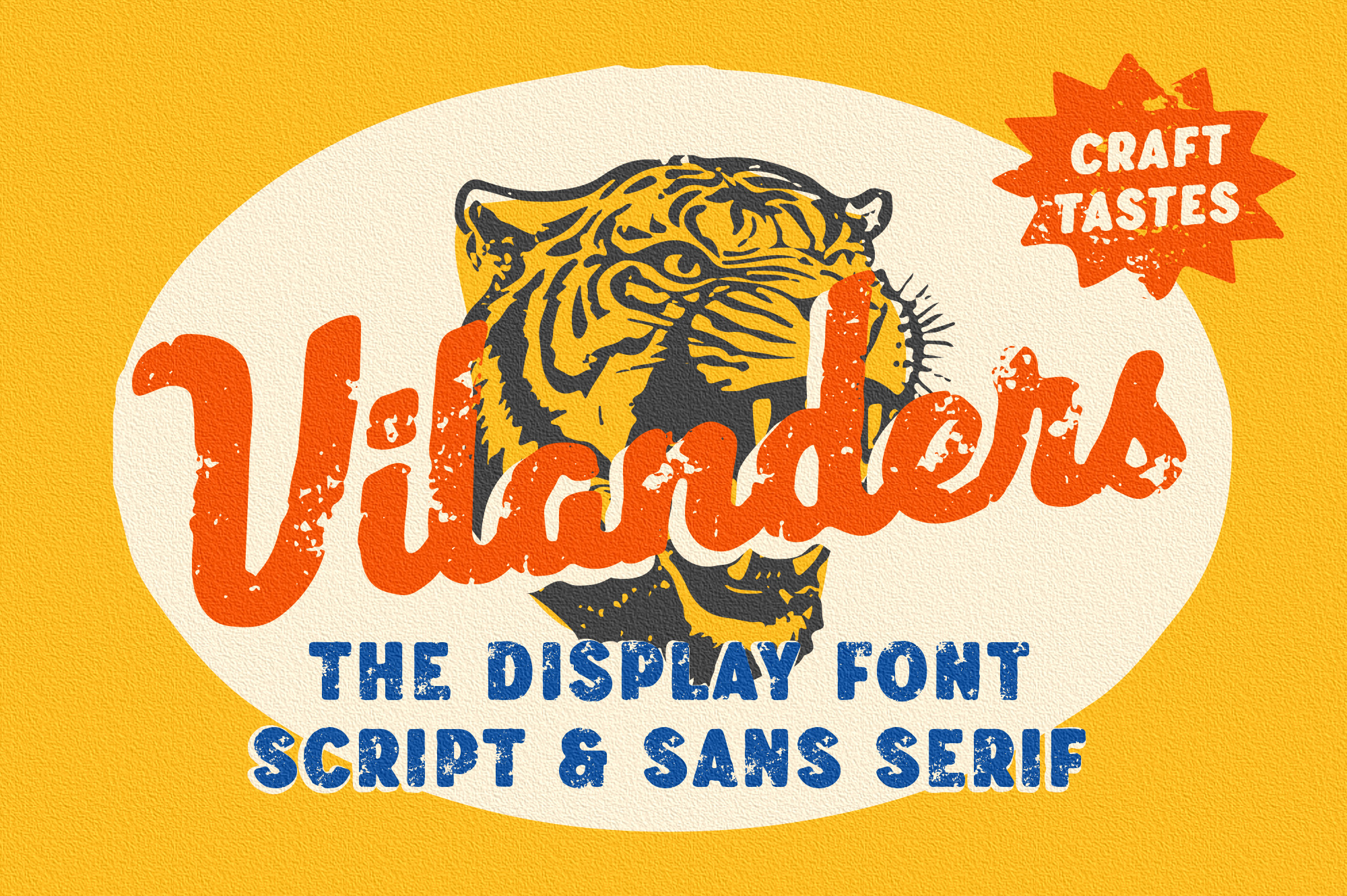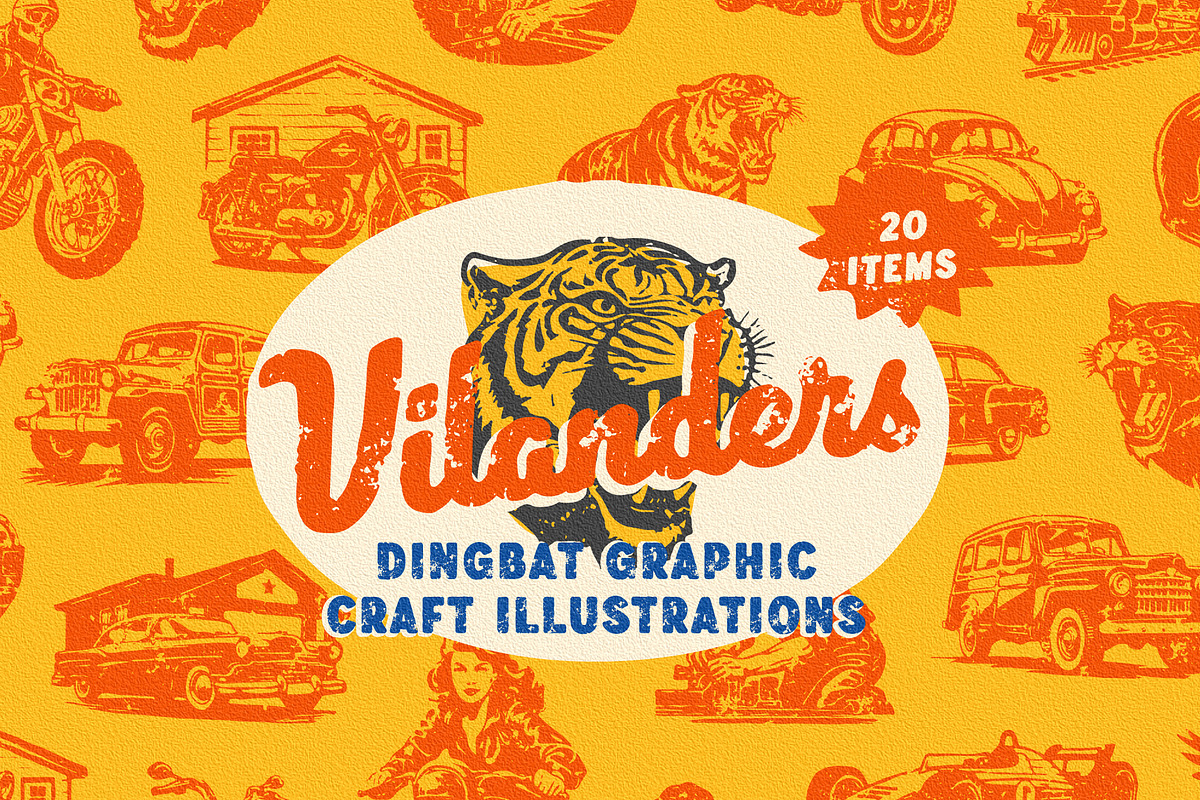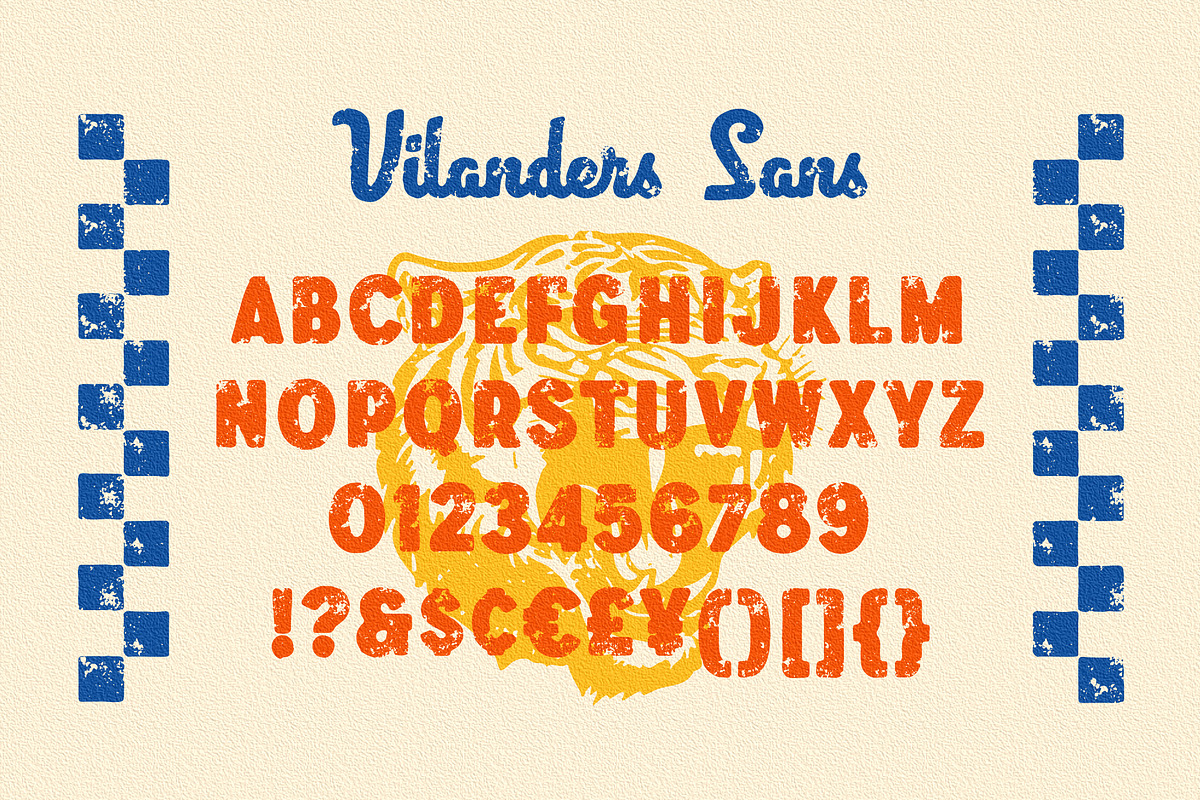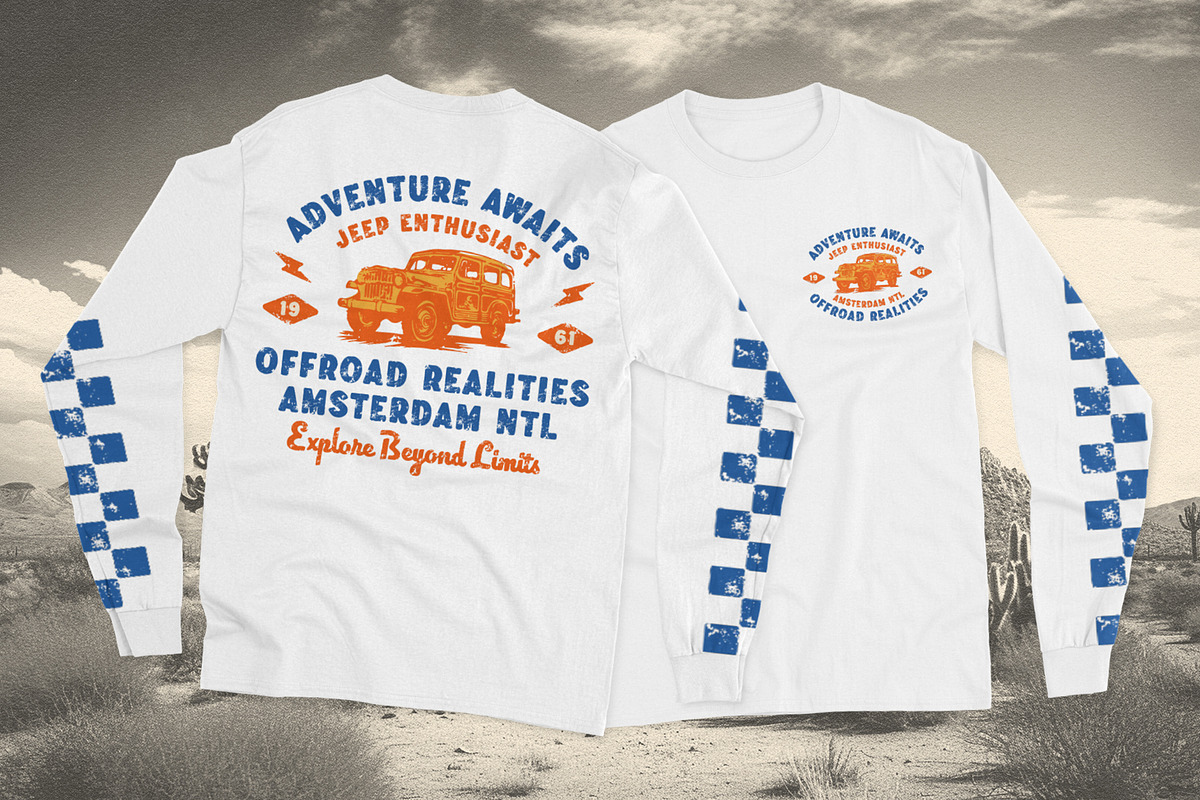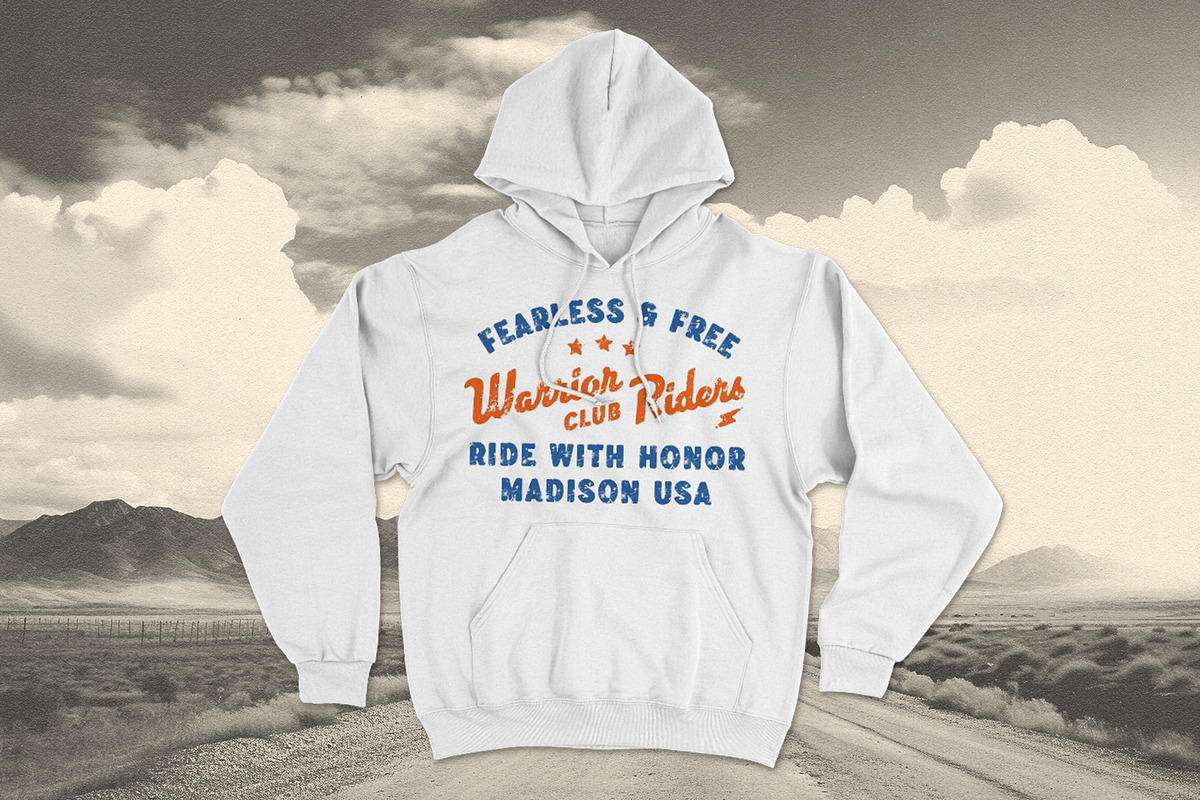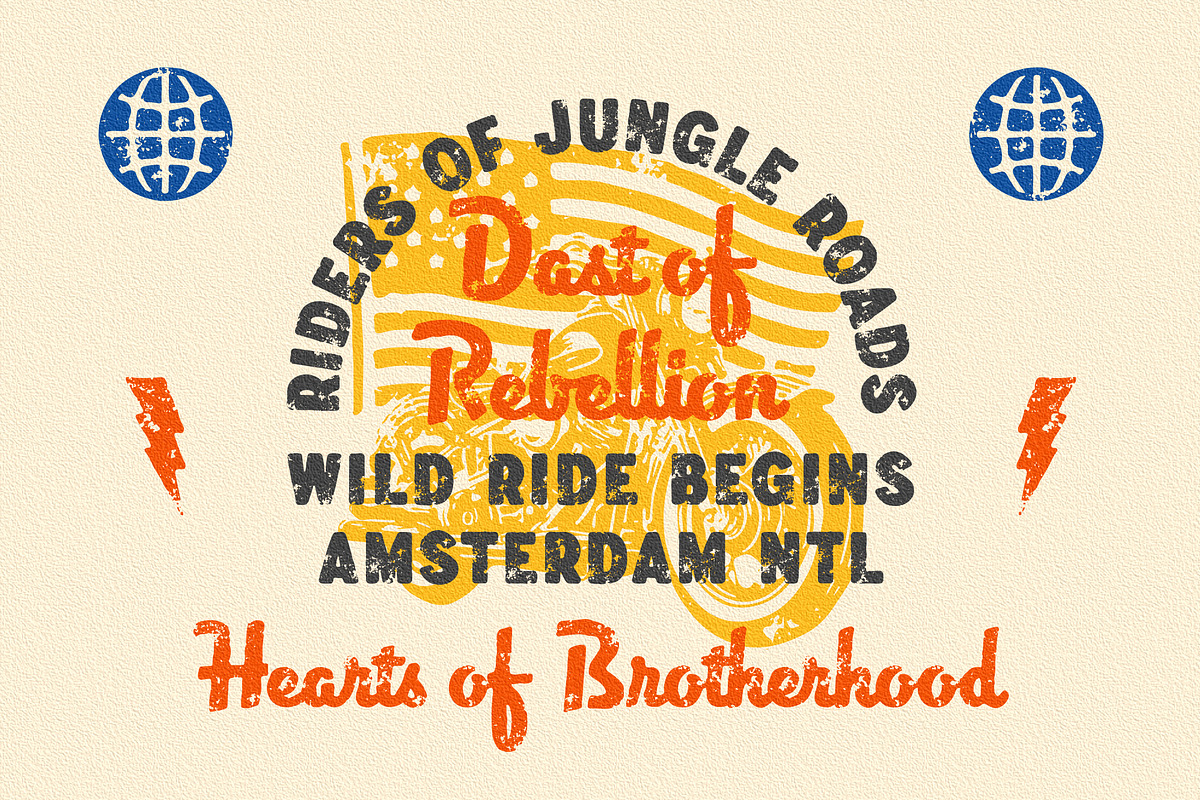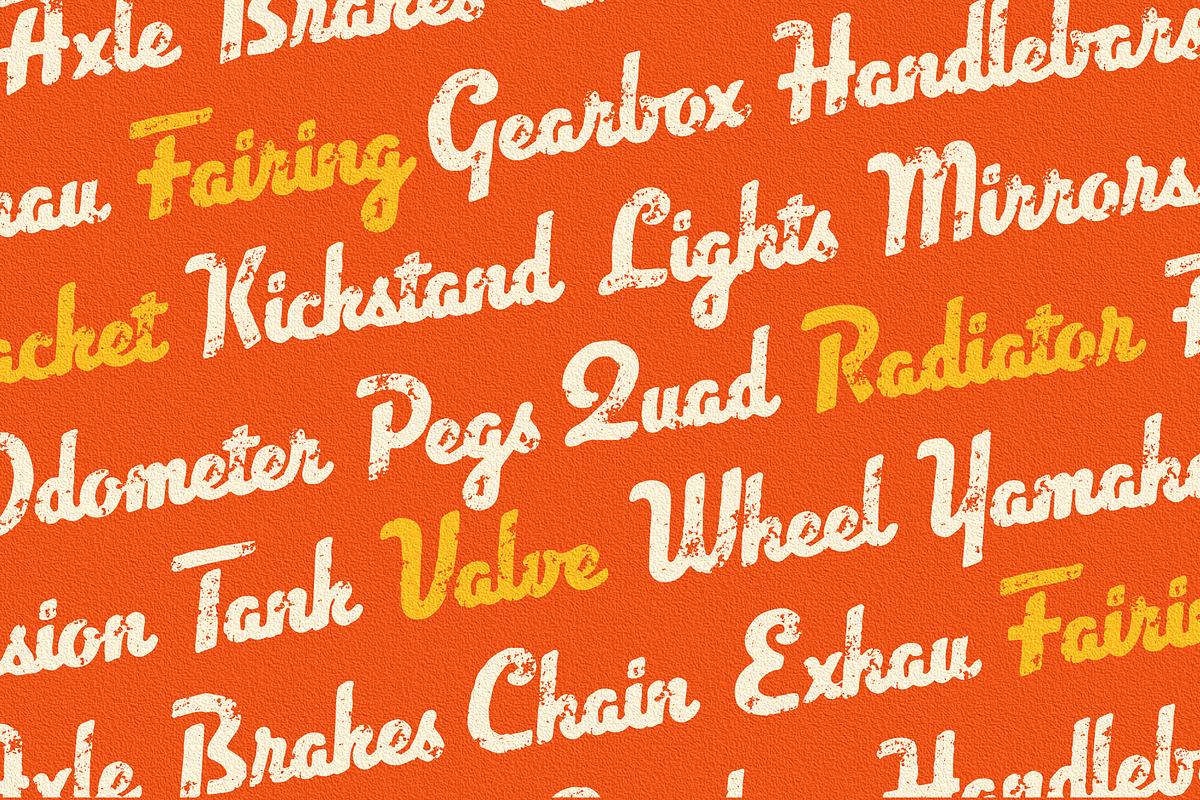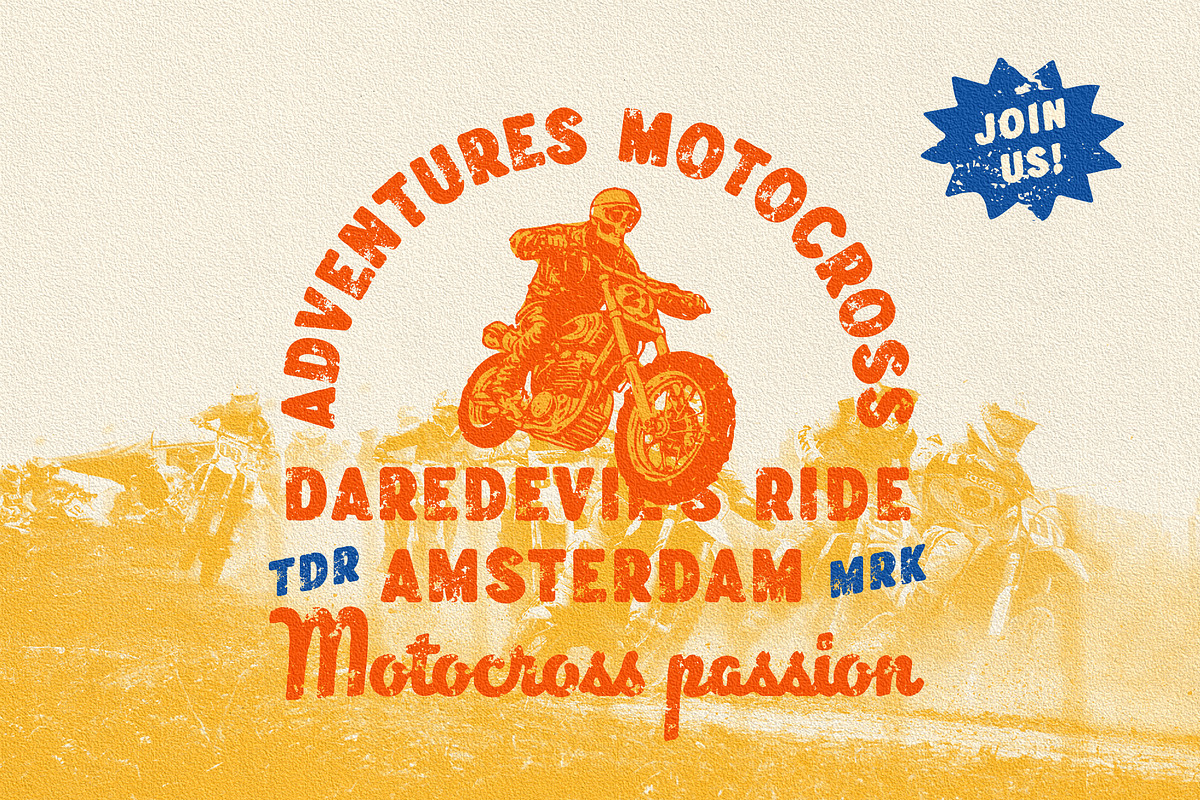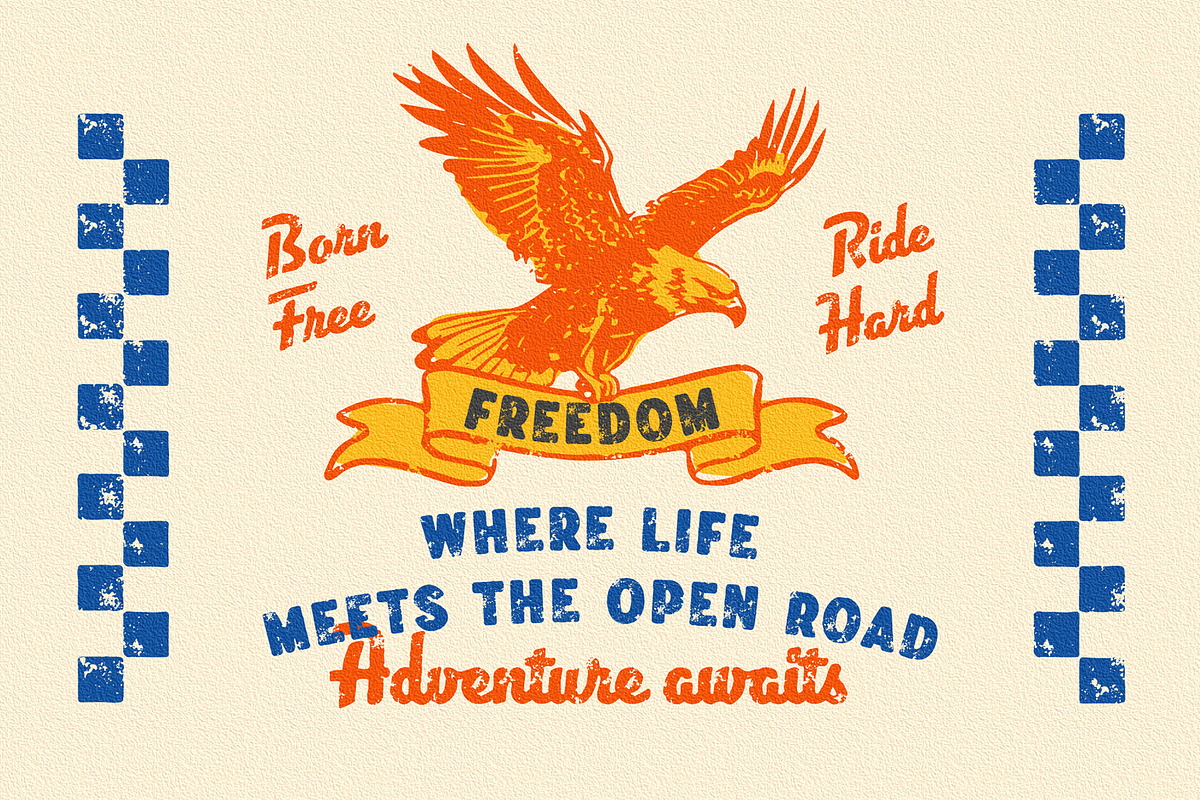
Vilanders - Vintage Stamp Font
Introducing Vilanders, a must-have hand-drawn pair script and san serif font collection designed exclusively for graphic designers. With three unique style fonts (regular, rough, and stamp) and an additional 20 hand-drawn motorcycle illustrations, this versatile package is perfect for logo creation, branding, apparel design, and more. Infuse your designs with vintage and stamp font flair and explore the possibilities with Vilanders.
Vilanders font features :
- 3 style typefaces (regular, rough and stamp)
- Uppercase, lowercase, numeral, symbol, punctuation and alternate in script font
- All-caps, numeral, symbol and punctuation in sans serif font
- 20 hand-drawn illustrations in dingbat